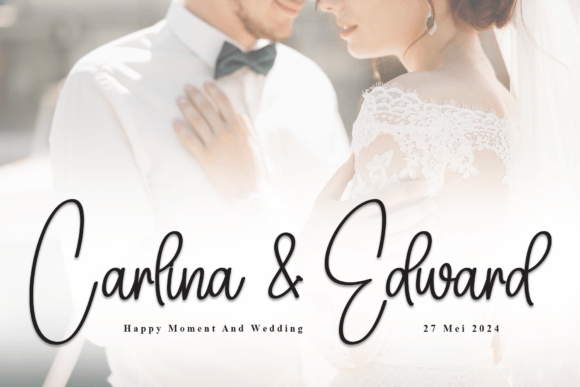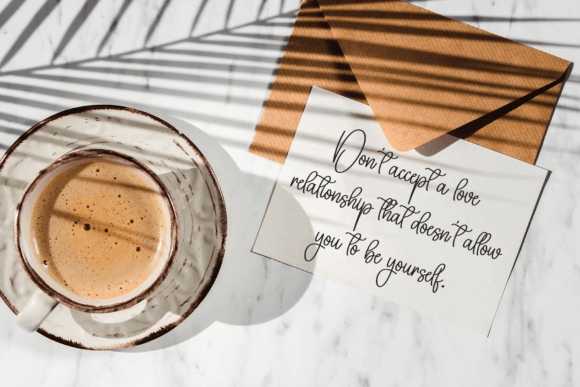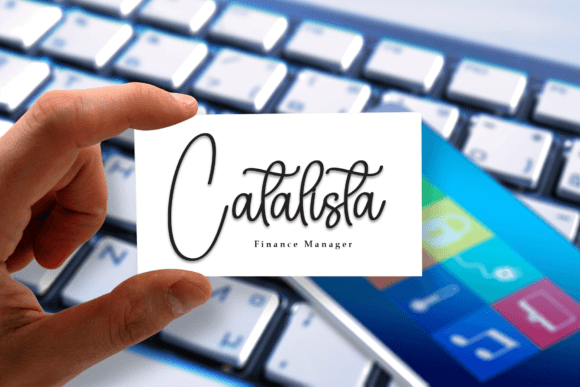
Introduction to Anniversary Font
As you sit down to craft the perfect invitation for your client’s wedding or design a heartfelt thank you card for a loved one, you’re likely on the hunt for the perfect font to convey your message. The moment of inspiration strikes when you stumble upon the Anniversary Font – a stylish and elegant script font that instantly elevates any design to the next level.
With its versatility and timeless charm, the Anniversary Font is an invaluable asset for designers working on creative projects that require a handwritten touch. Whether you’re designing a logo, business card, or greeting card, this high-quality font is sure to leave a lasting impression on your audience.
Anniversary Font
- High-quality font design for creative projects, ideal for romantic occasions and special events.
- Unique characteristics include elegant script and cursive styles, perfect for creating beautiful typography.
Honest Review: Anniversary Font
As a designer, I’m always on the lookout for high-quality design resources to elevate my creative projects. Recently, I had the chance to try out the Anniversary Font, and here’s my honest review.
- The high-quality design ensures that the font looks great on various screens and devices.
- The font’s style may not be to everyone’s taste, so it’s essential to preview it before using it in a project.
Overall, I’m impressed with the Anniversary Font’s design and functionality. While it may have some limitations, it’s a great resource for designers working on personal or non-commercial projects. If you’re looking for a high-quality, free font for your creative project, the Anniversary Font is definitely worth checking out.